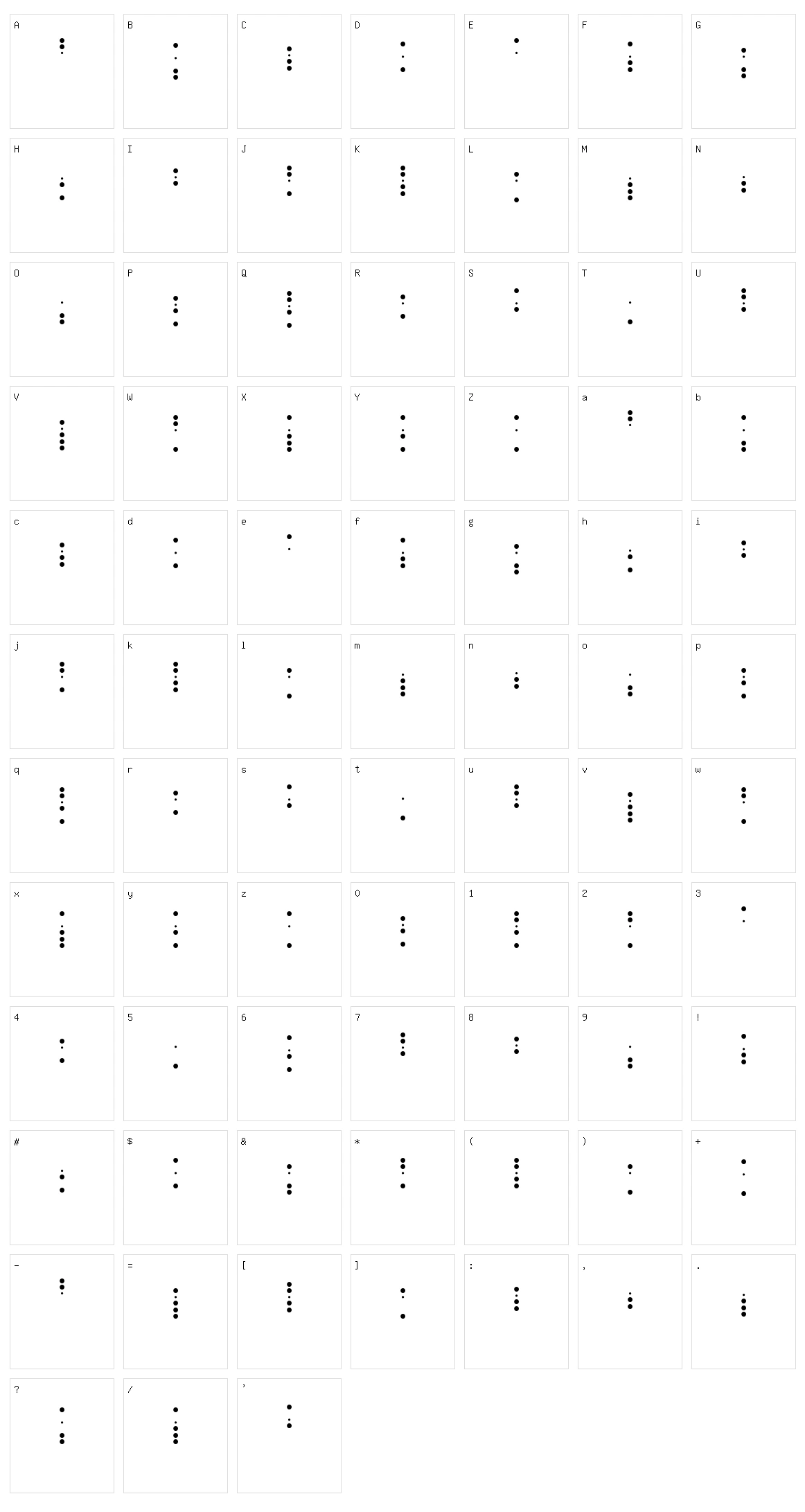
The Baudot code, invented by Ãmile Baudot, is a character set predating
EBCDIC and ASCII, and the root predecessor to International Telegraph
Alphabet No 2 (ITA2), the teleprinter code in use until the advent of
ASCII.
Each character in the alphabet is represented by a series of 5 bits,
sent over a communication channel such as a telegraph wire, a radio
signal or in this case a punched paper tape.
This font uses the Baudot Code and the paper tape sprocket holes to make
a decorative old school techno font..and it is free for personal use.